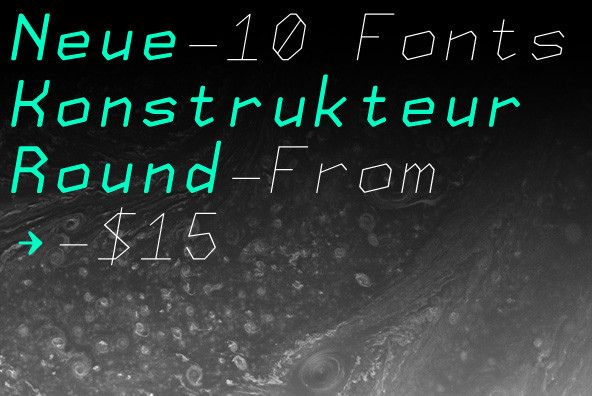
Neue Konstrukteur Round Font
Neue Konstrukteur Round Font is perfect for modern construction branding, architectural design firms, engineering consultancies, innovative building materials, systematic design projects, contemporary industrial communications, geometric product packaging, and progressive construction advertising. This refined typeface works exceptionally well in both digital applications and print media where constructive innovation and geometric sophistication are fundamental design requirements.
What makes Neue Konstrukteur Round Font so exciting is its masterful interpretation of contemporary construction methodology through geometrically refined letterforms that combine the systematic precision of engineering with the approachable warmth of rounded corners. The font features structured characters with architectural proportions, geometric curves softened by rounded edges, and construction-focused details that communicate technical competence while maintaining human accessibility. Its innovative personality and architectural heritage make it ideal for modern construction brands seeking to establish technical authority while appealing to clients who appreciate both engineering precision and user-friendly design approaches.
The Neue Konstrukteur Round Font family includes comprehensive weight variations from light to bold, along with matching styles and architectural alternates. Each style maintains the typeface's constructive character while offering extensive multilingual support, technical numerals, engineering-focused punctuation marks, and special symbols designed to enhance construction communications and architectural branding efforts across global building and design markets.
This extraordinary typeface represents the perfect evolution of construction typography optimized for contemporary architectural and engineering applications. Whether you're developing modern construction company identities, creating architectural presentation materials, or designing innovative building product campaigns, Neue Konstrukteur Round Font Free Download delivers the technical sophistication and versatility needed for successful modern construction communications. The font's geometric approach makes it particularly effective for architectural firms, construction companies, engineering consultancies, and organizations celebrating the intersection of technical precision and human-centered design.
The meticulously engineered geometric construction and optimized architectural performance in Neue Konstrukteur Round Font ensure maximum professional impact while maintaining approachable communication across all construction applications. Its refined presence makes it ideal for architectural branding, construction marketing materials, and engineering communications where its full constructive character can create lasting impressions and establish immediate association with technical excellence, innovative thinking, and the sophisticated geometry of contemporary construction design.